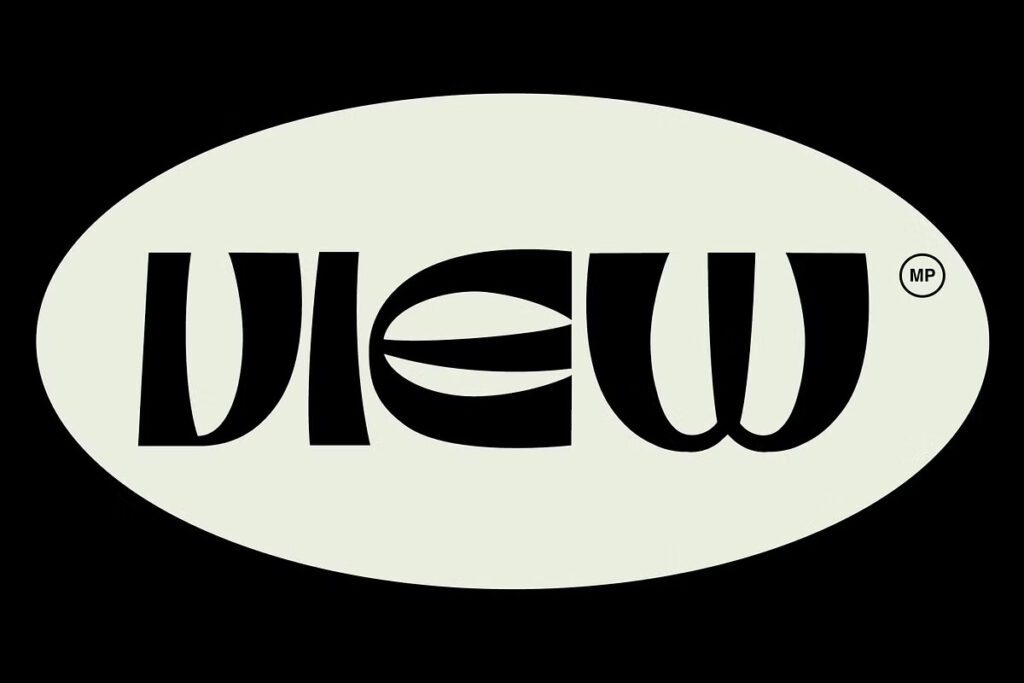
Introducing View Display Typeface – A Bold, Modern Typeface for Standout Designs
When it comes to bold, eye-catching designs, the right typeface makes all the difference. Enter View Display Typeface, a striking and modern font perfect for making your creative projects stand out. Whether you’re designing for print or digital, this bold display typeface is ready to bring your concepts to life with confidence and style.
What Makes View Display Typeface Unique?
Bold and Modern: View Display Typeface was designed to be bold, clean, and modern, making it ideal for projects that require a strong visual impact.
Perfect for Display: Whether you’re creating posters, packaging, branding, or even social media graphics, View’s bold lines and striking presence will make sure your message gets noticed.
How to Use View Display Typeface
The best way to use View is by pairing it with minimalistic designs that allow the font to take center stage. Whether you’re designing a high-contrast poster, a dynamic website, or impactful branding, View is versatile enough to work in a variety of settings. Its bold and clean lines allow for maximum legibility while also offering an aesthetically pleasing design.